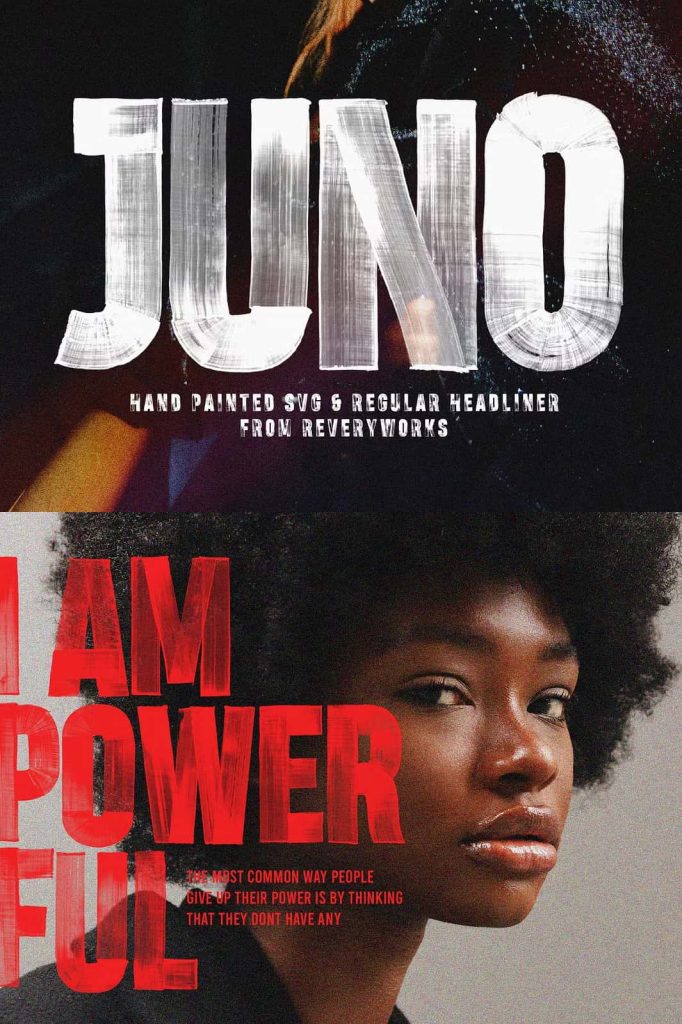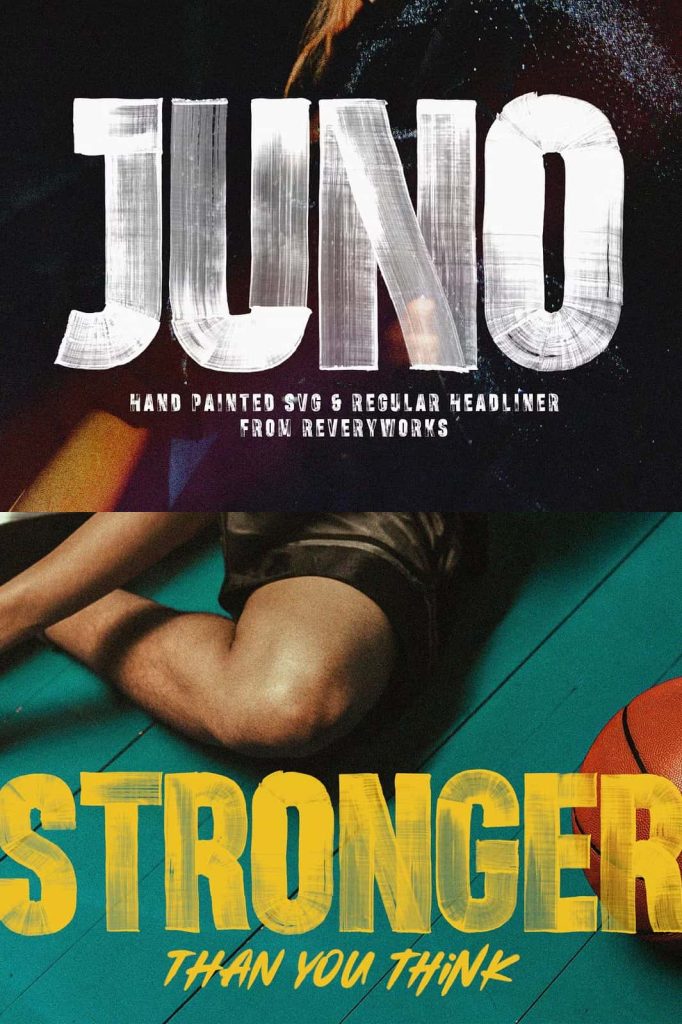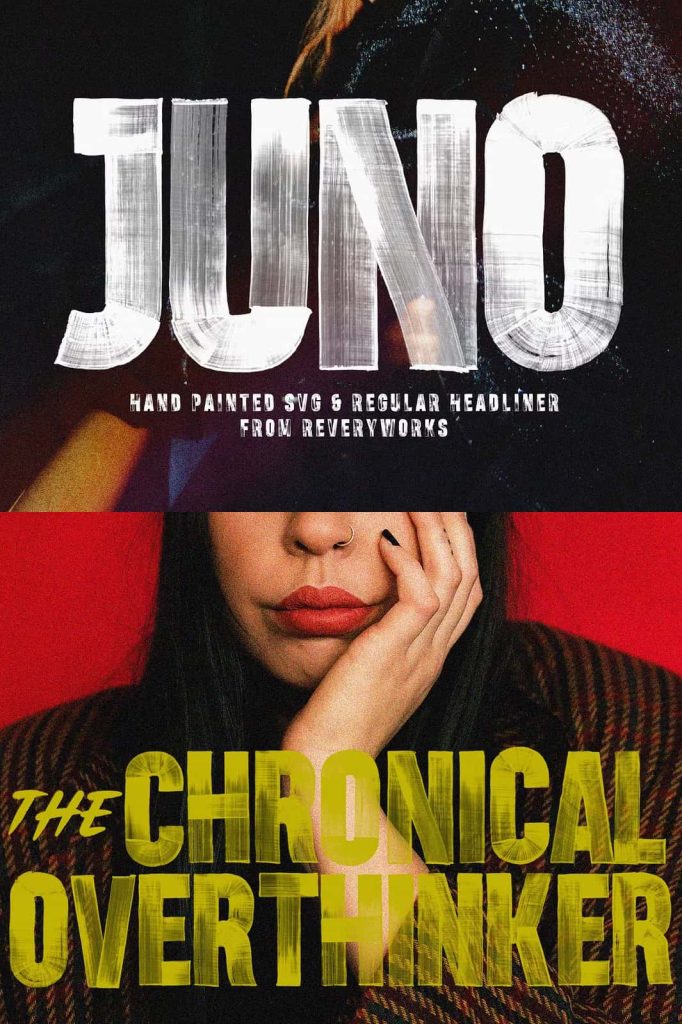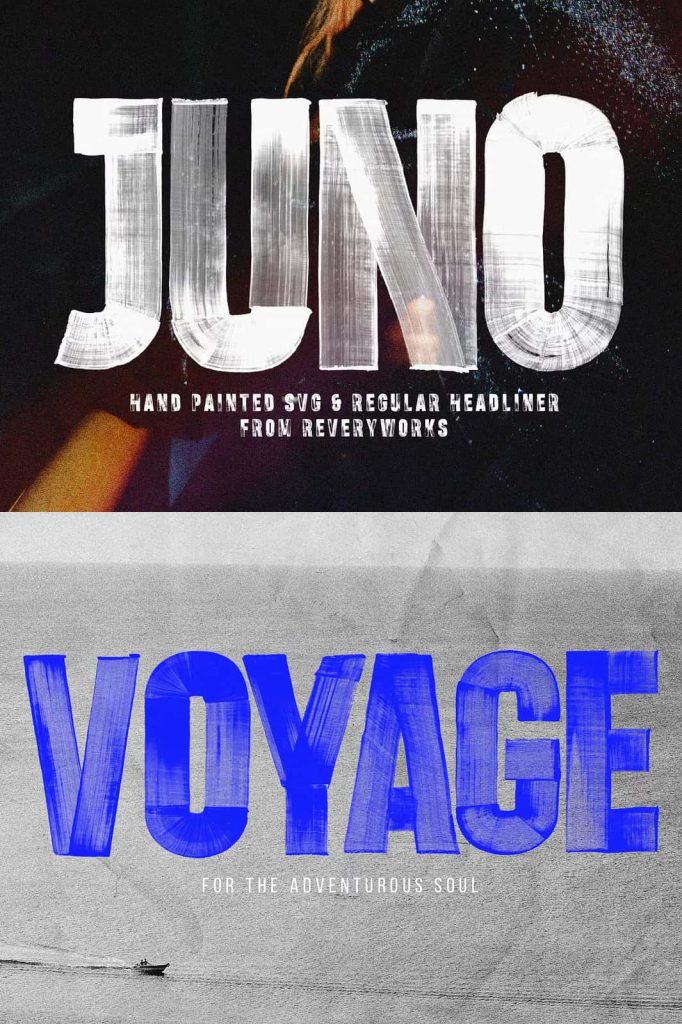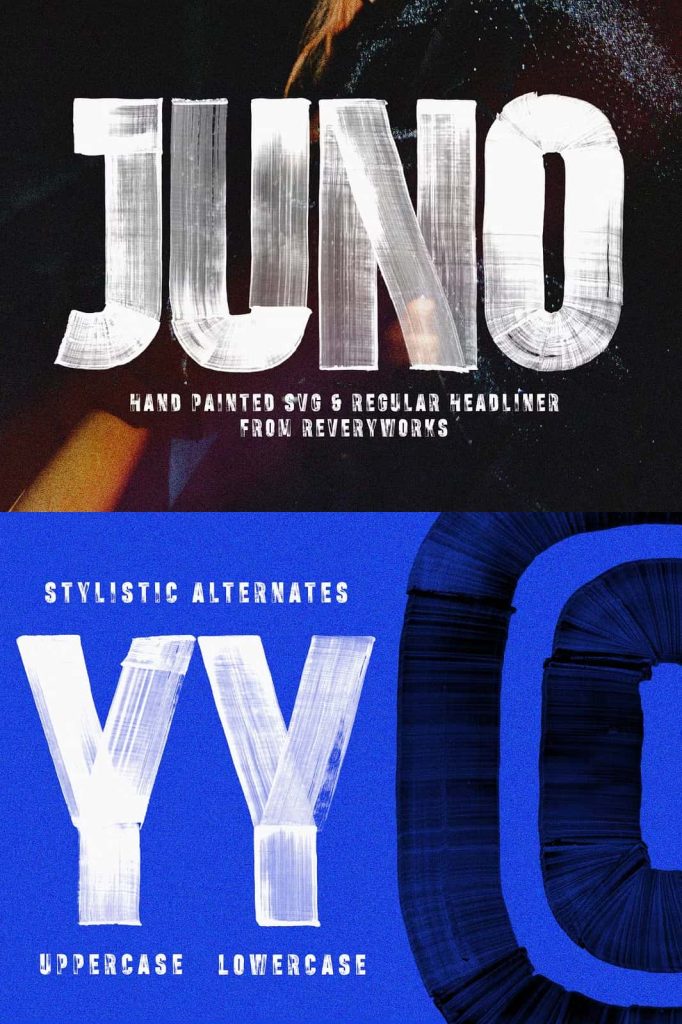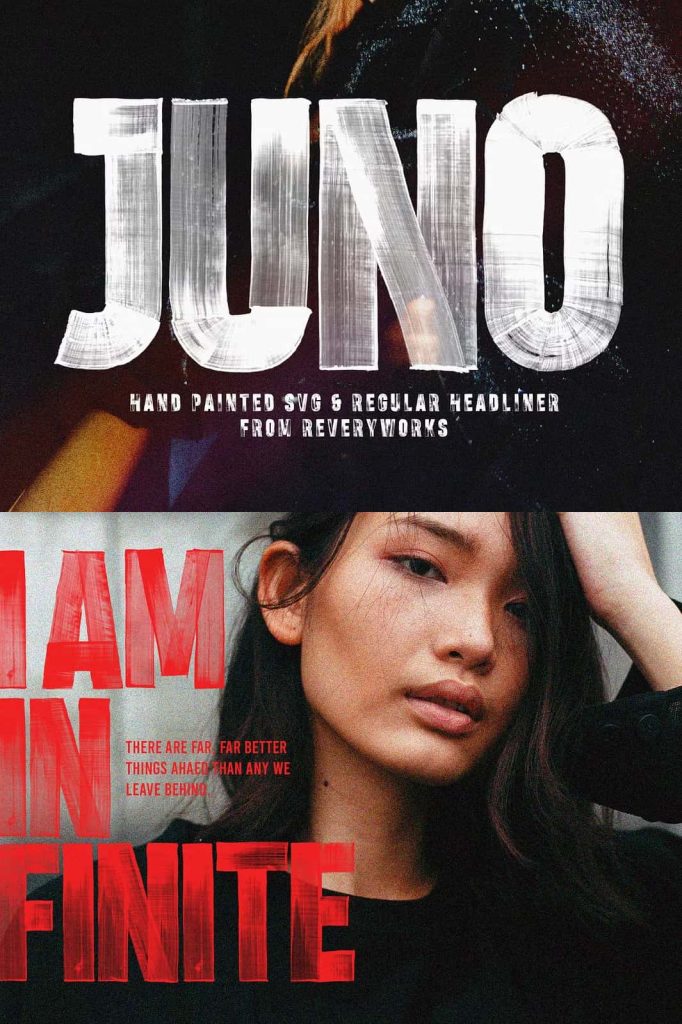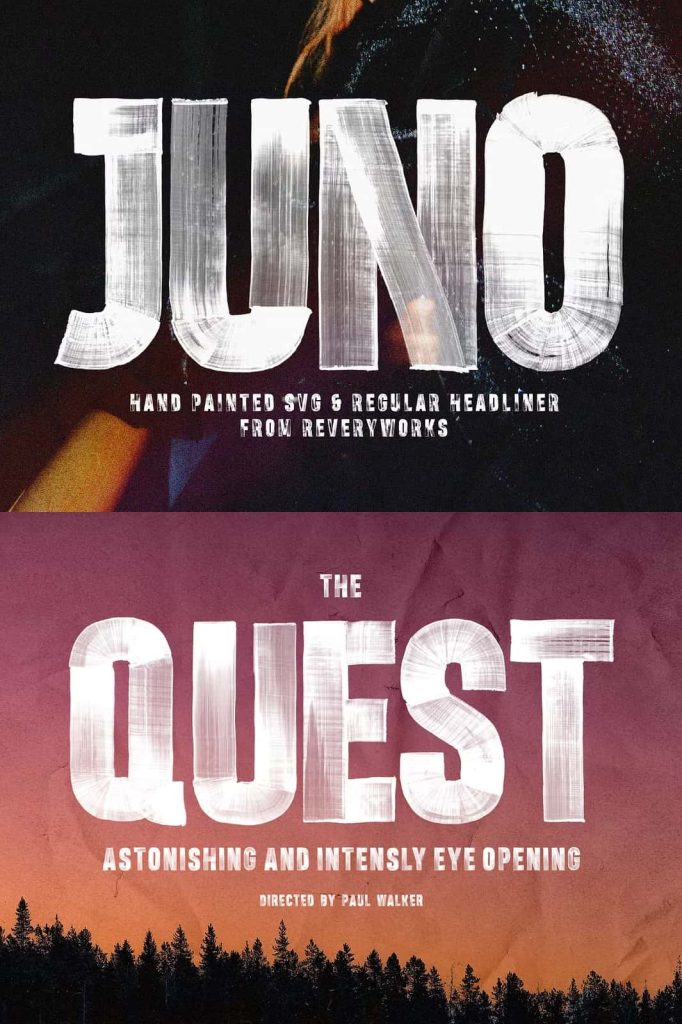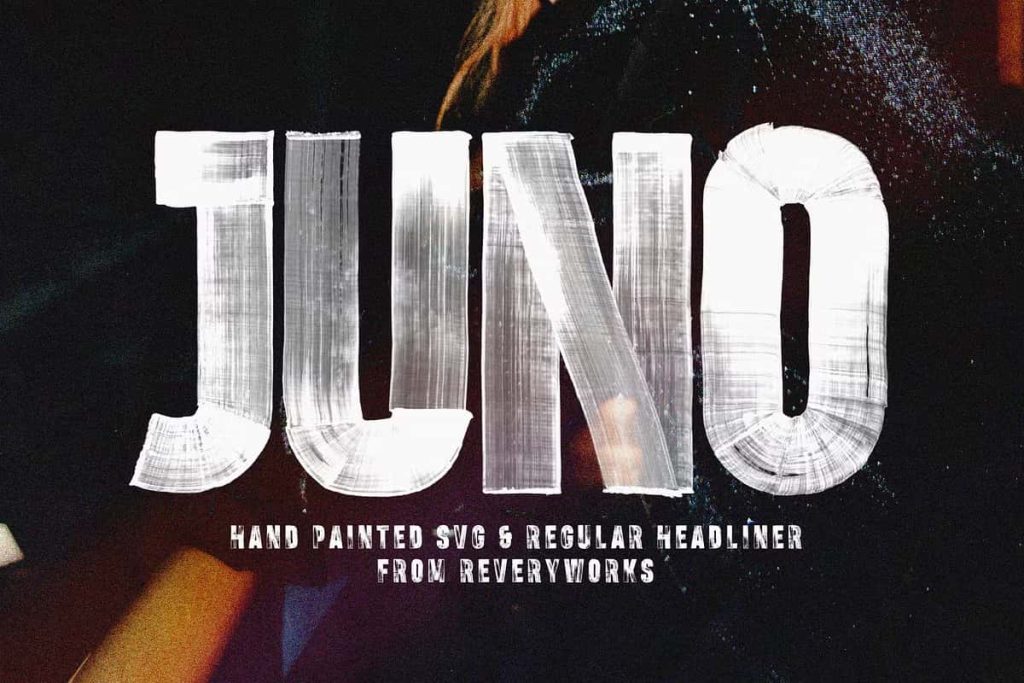
JUNO – SVG & Regular
Introducing JUNO – A bold condensed Hand Painted Headliner Font from ReveryWorks.
Each character was individually hand-painted to give it unique texture and achieve the drag marks. Its here to help you make STRONG and POWERFUL statements in your projects!